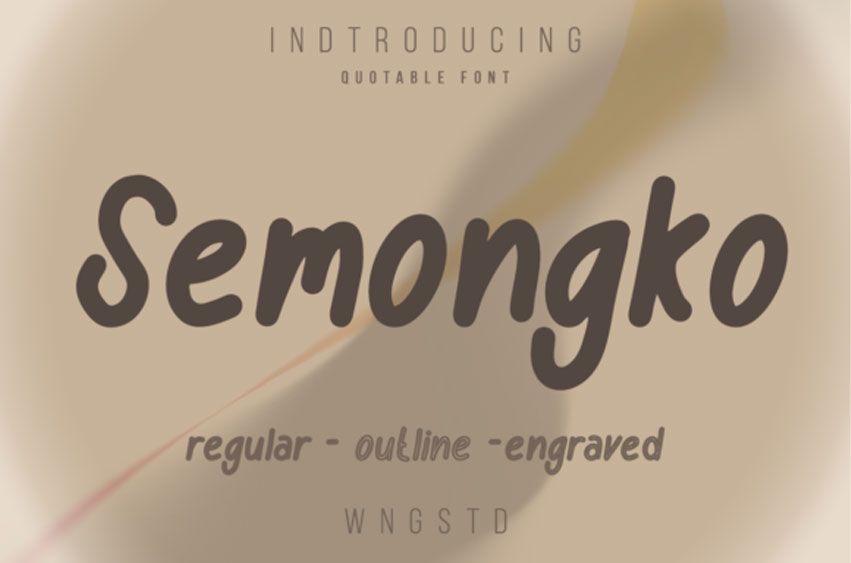
Semongko Font
Semongko Font is a cute display font perfectly suited for traditional media and the web. Great for logos, banners, posters and graphic artists, is compatible with all tools.
Its playfulness makes it great for any creative project., be it inspirational wall poster or for communicating your brand.